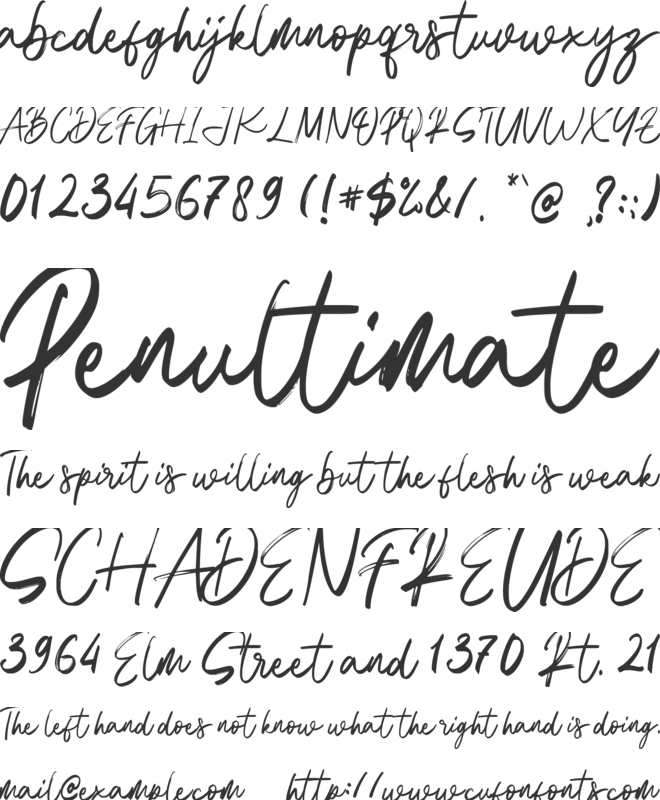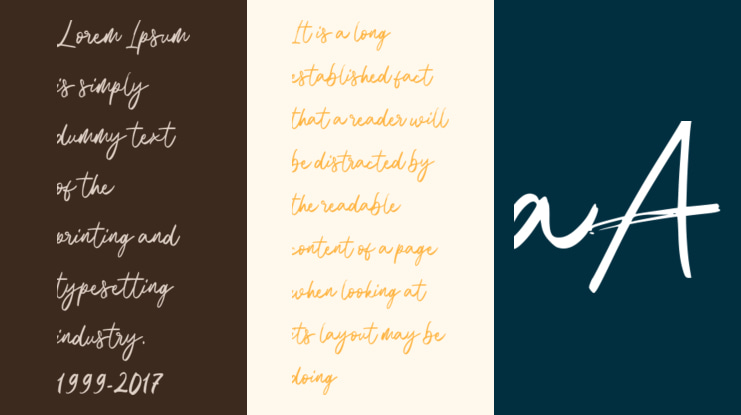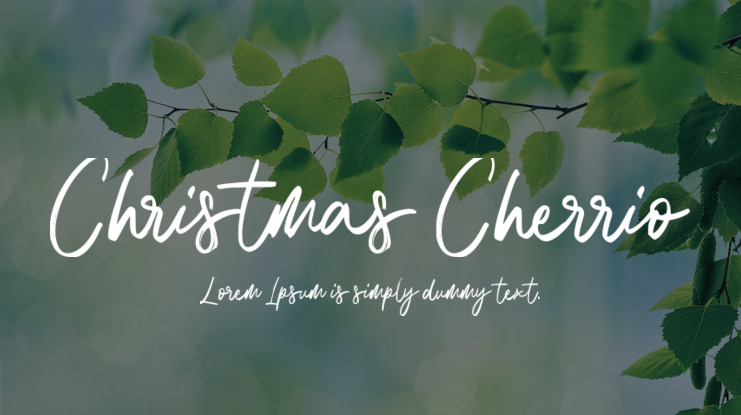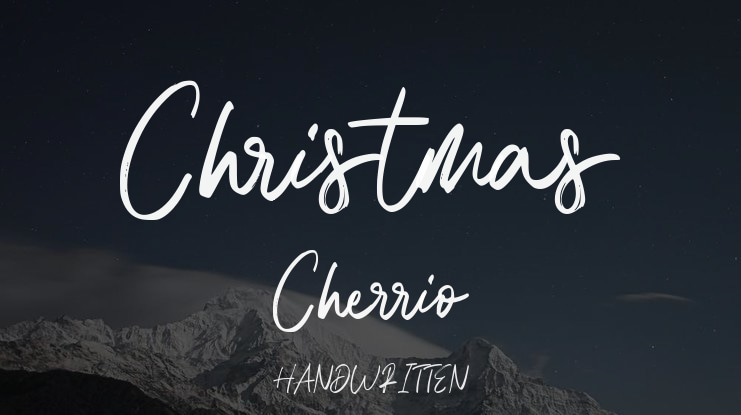
Christmas Cherrio Font
Immerse yourself in the warm, rustic charm of Christmas Cherrio, a brush font boasting a natural and earthy appeal. Skillfully handcrafted, its timeless elegance lends itself perfectly to any design need, especially for holiday-themed creations. Explore the versatility of Christmas Cherrio for your Christmas and New Year designs, adding a touch of organic beauty to every project. Experience the organic allure of Christmas Cherrio today.